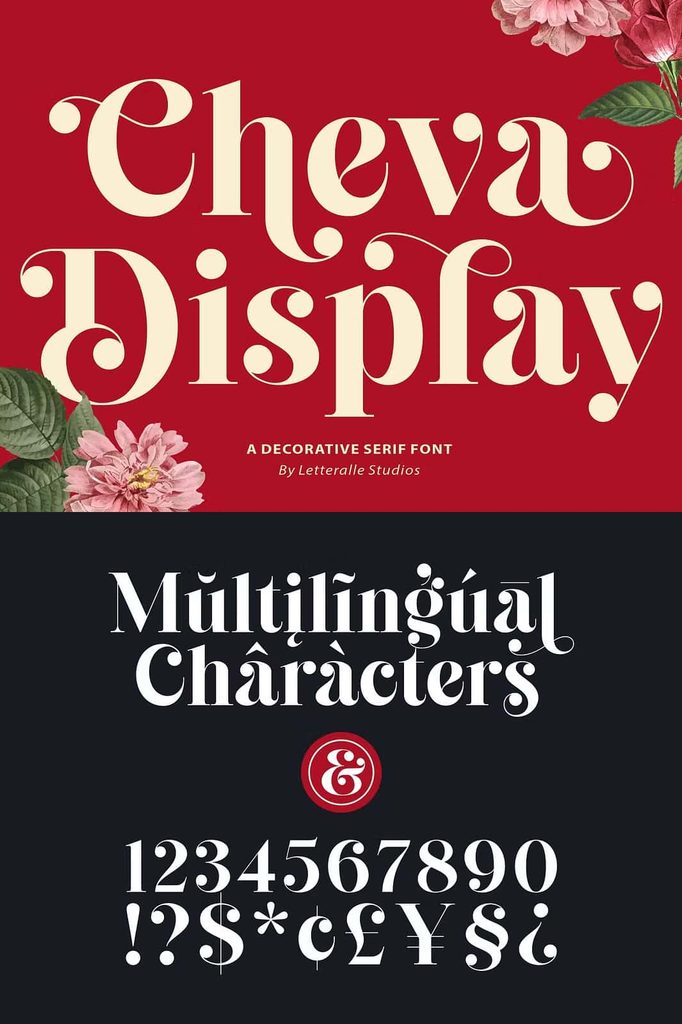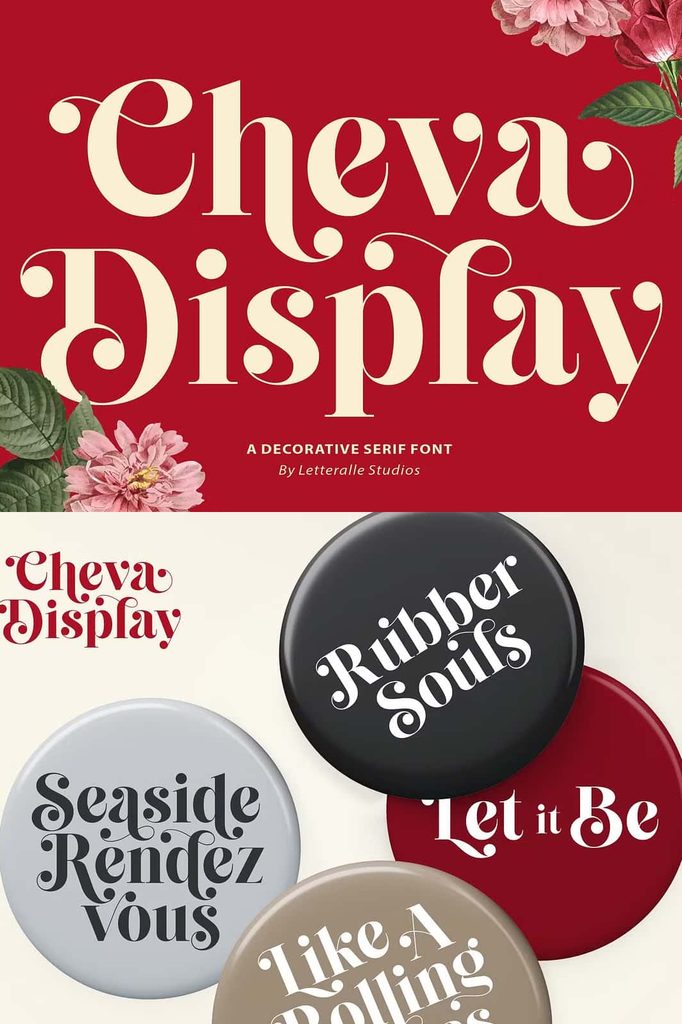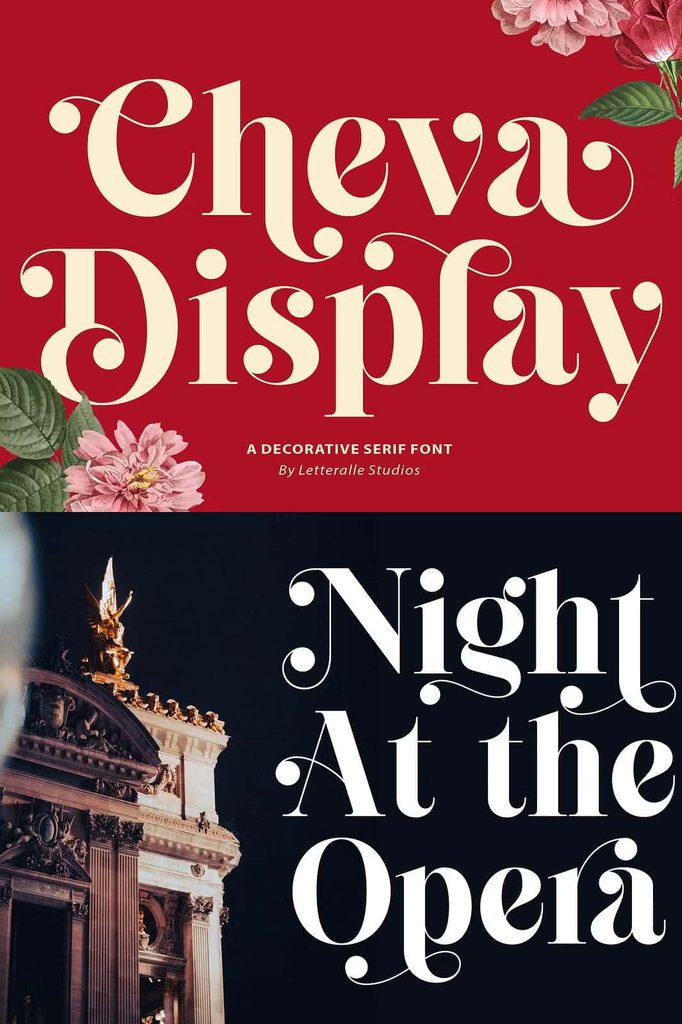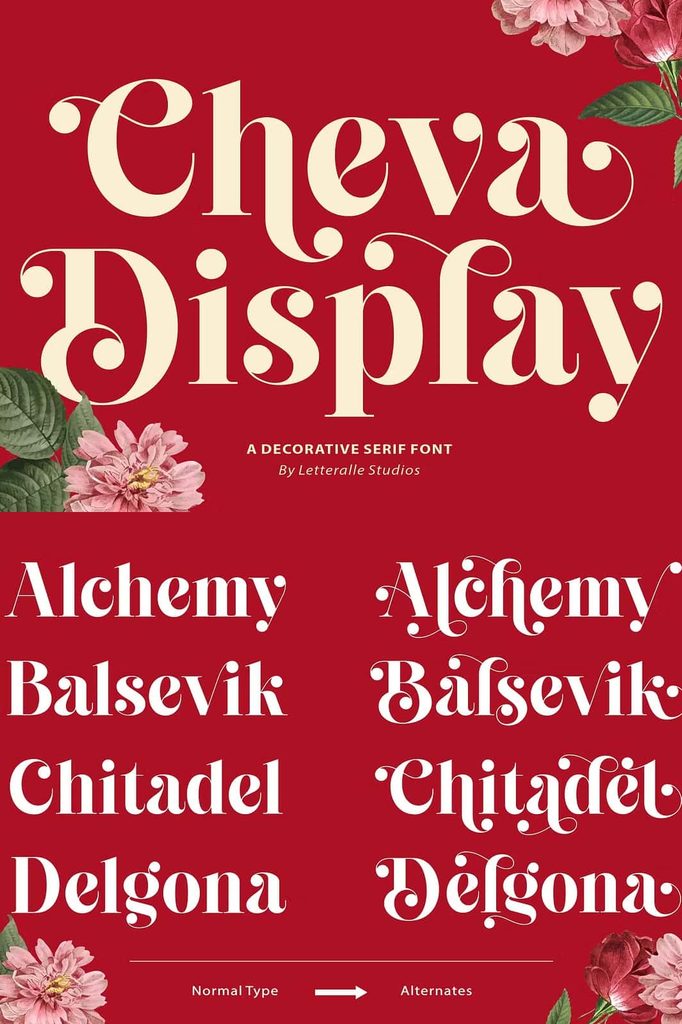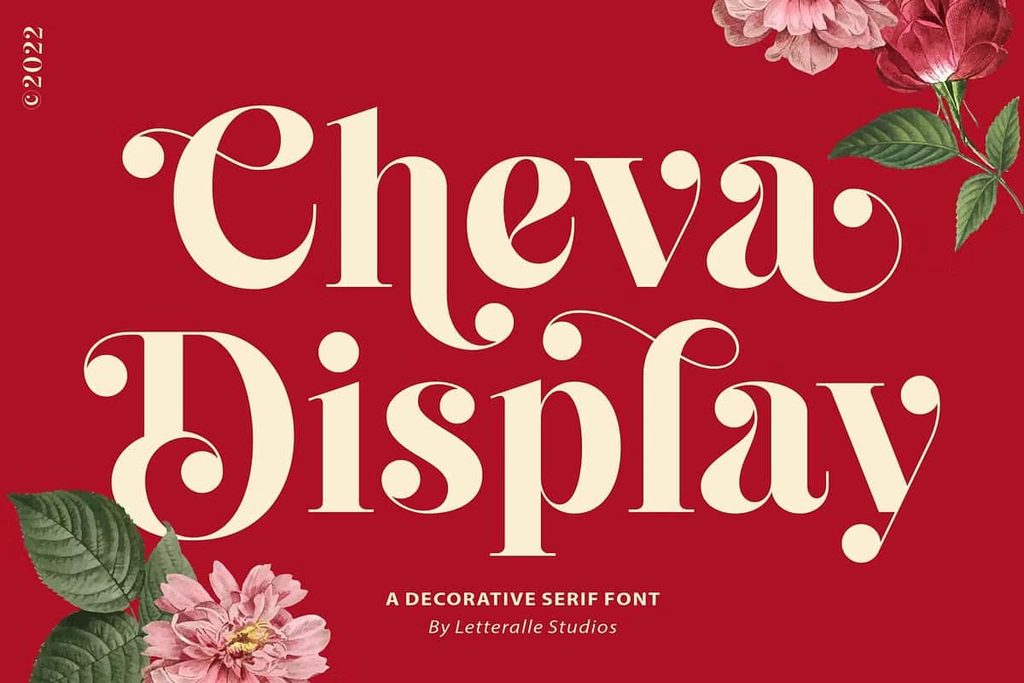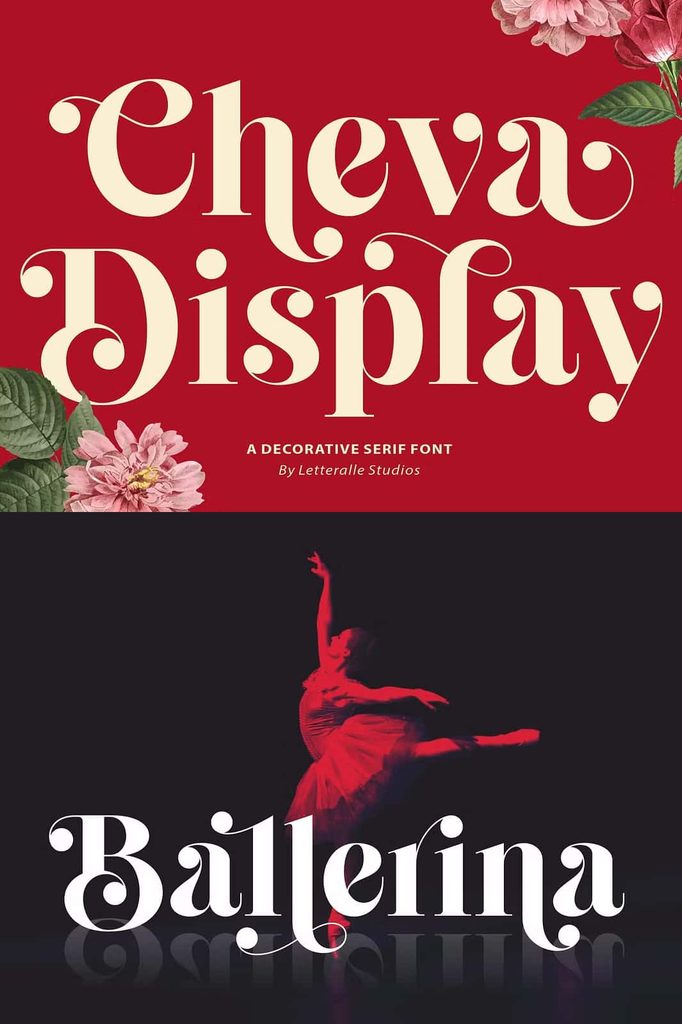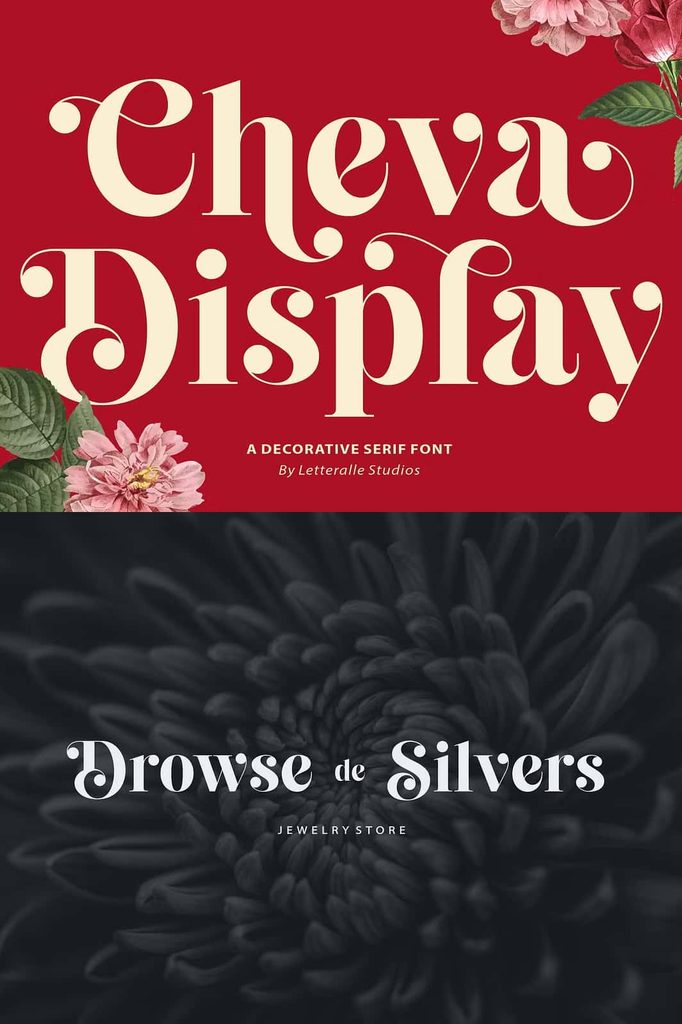
Cheva Display Font – Bold Vintage Style with Elegant Curves
Cheva Display is a bold and distinctive display font that combines vintage character with a modern creative edge. Designed to make typography stand out, this typeface balances strong letterforms with fine curves, giving your designs a confident yet refined appearance. Its expressive shapes create an immediate visual impact while maintaining enough elegance to work across a wide range of creative projects.
With its unique combination of bold structure and delicate details, Cheva Display brings personality to ordinary words. The font captures the atmosphere of classic typography while introducing contemporary proportions and styling. This balance makes it a versatile choice for designers who want to create memorable headlines, logos, labels, packaging, posters, apparel graphics, and promotional materials.
A Bold Display Font with Vintage Character
Cheva Display takes inspiration from vintage lettering while avoiding an overly traditional appearance. Its strong forms give every word a powerful presence, while the refined curves add a sophisticated finishing touch. This combination allows the font to communicate strength, creativity, and elegance at the same time.
The bold construction works particularly well when you need typography to become the central visual element of a design. Use Cheva Display for large titles, brand names, campaign headlines, product labels, or statement text. The distinctive letterforms can immediately attract attention and help establish a recognizable visual identity.
Although Cheva Display carries a vintage influence, its modern details keep it relevant for contemporary design. You can use it in retro-inspired projects, modern branding systems, editorial compositions, merchandise, and digital graphics without making the overall design feel outdated.
Elegant Curves and Distinctive Letterforms
One of the defining characteristics of Cheva Display is its combination of bold shapes and fine curves. The contrast between these elements creates visual rhythm throughout each word. Strong strokes provide stability and impact, while curved details soften the overall appearance and introduce a touch of elegance.
This balance gives designers more creative freedom. Cheva Display can produce a rugged vintage headline when paired with strong colors and bold layouts, or it can create a more refined appearance when combined with spacious compositions, subtle textures, and elegant supporting typography.
The distinctive letterforms also help individual words feel more customized. Instead of relying on ordinary characters, you can explore the font’s alternate options to create different typographic arrangements and give your designs a more personal character.
Alternative Letters for More Creative Typography
Cheva Display includes a variety of alternative letters that allow you to customize your typography. These alternate characters can change the appearance of selected letters and introduce additional personality into your words. They are especially useful when creating logos, monograms, headlines, badges, and other designs where unique lettering plays an important role.
By experimenting with different alternatives, you can create multiple visual treatments from the same font. This flexibility allows designers to avoid repetitive typography and develop compositions that feel more carefully crafted. Alternate characters can also help you create a distinctive brand style that separates your work from standard font-based designs.
Expressive Ligatures for a Custom Look
Cheva Display also features ligatures that enhance the relationship between selected characters. Ligatures connect or modify letter combinations to create smoother and more visually appealing typography. These details can make a significant difference in large display text where every character remains highly visible.
Use the available ligatures to add sophistication to brand names, titles, packaging, invitations, posters, and promotional artwork. They can create subtle typographic variations without requiring manual drawing or complicated letter adjustments. When combined with the alternative characters, the ligatures give Cheva Display an even broader range of creative possibilities.
Perfect for Logos and Branding
Cheva Display works particularly well for branding projects that require a bold and recognizable identity. Its strong appearance can help a business name or product title command attention, while its curved details prevent the typography from appearing too rigid.
Use Cheva Display to design logos, wordmarks, badges, product identities, labels, packaging titles, and brand campaigns. Its vintage-modern character works especially well for businesses and creative brands that want to communicate craftsmanship, confidence, personality, and originality.
For logo design, experiment with the alternative characters and ligatures to create a custom wordmark. Adjust letter spacing, scale, and composition to develop a balanced identity that feels unique to your project.
From logos and branding to packaging, posters, apparel, editorial layouts, and digital graphics, Cheva Display can adapt to many creative applications. Use its bold personality to capture attention, then explore its refined details to add character and originality. If your project needs a display typeface that feels confident, stylish, expressive, and memorable, Cheva Display offers a compelling typographic solution.